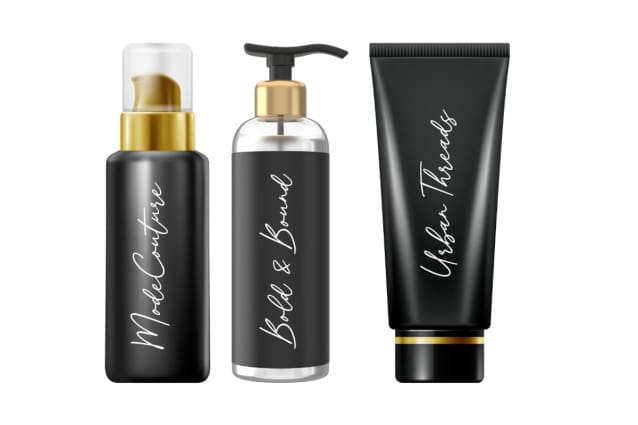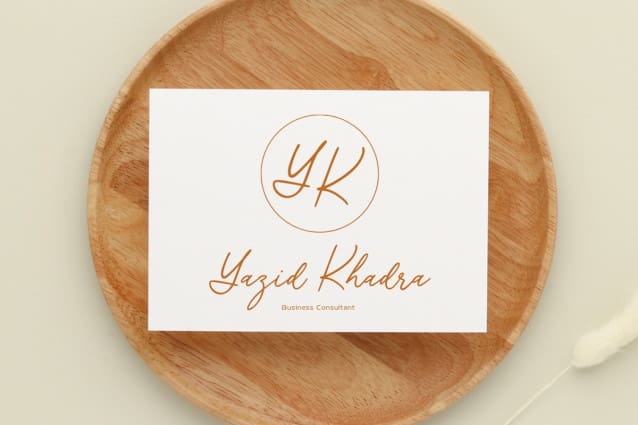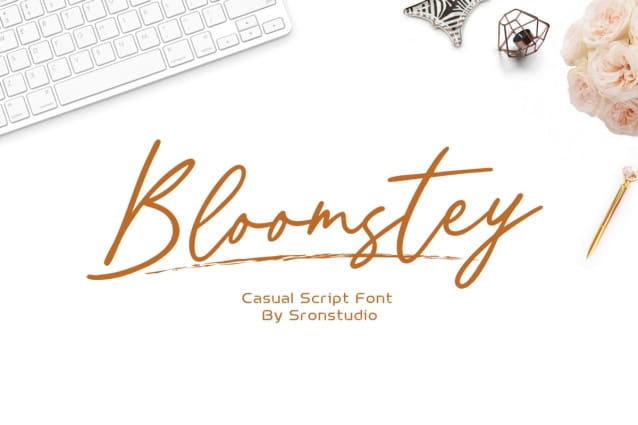
Bloomstey Script Font
Bloomstey Script Font is a charming casual script font that radiates warmth and elegance. With its smooth, flowing letters and friendly character, this font is perfect for personal projects, invitations, branding, and social media designs. Bloomstey’s playful, yet stylish look brings a fresh and approachable feel to your work, making it ideal for creative projects that need a touch of personality and natural flair.